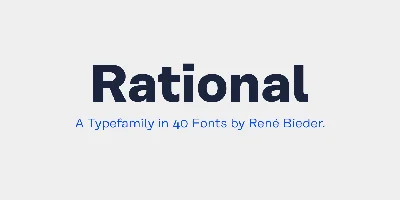
Rational Font
Rational Font is perfect for scientific research publications, analytical business reports, logical system documentation, mathematical presentations, data visualization projects, technical specification materials, academic research papers, systematic design guidelines, evidence-based communications, and methodical information design. This logical typeface creates authentic analytical atmosphere in both research print and digital scientific platforms.
What makes Rational Font exciting is its systematic design approach that perfectly embodies logical thinking and analytical precision with methodical sophistication. The font features mathematically balanced letterforms with rational proportions and systematic character details that reflect scientific methodology and evidence-based reasoning. Its logical design establishes an atmosphere of intellectual rigor and analytical authority that resonates with academic audiences seeking authentic scientific credibility and methodical excellence.
Rational Font family includes systematic variations: Light, Regular, Medium, Bold, and Logic versions, each with analytical alternates and scientific character sets. Each variant maintains the font's logical integrity while providing designers with methodical options for creating systematic typography hierarchies and analytical communication materials.
This exceptional analytical typeface brings authentic scientific credibility to projects requiring logical presentation. Whether you're designing research documentation, analytical marketing, or scientific content materials, Rational Font delivers outstanding clarity and analytical sophistication. The font's rational proportions and systematic details ensure memorable intellectual connection across various scientific applications.
Research institutions and analytical organizations recognize how Rational Font perfectly embodies the principles of logical thinking and scientific methodology. Its systematic foundation combined with analytical precision makes it essential for scientific and research design projects. Download today and rationalize your designs with this exceptionally logical analytical typography.